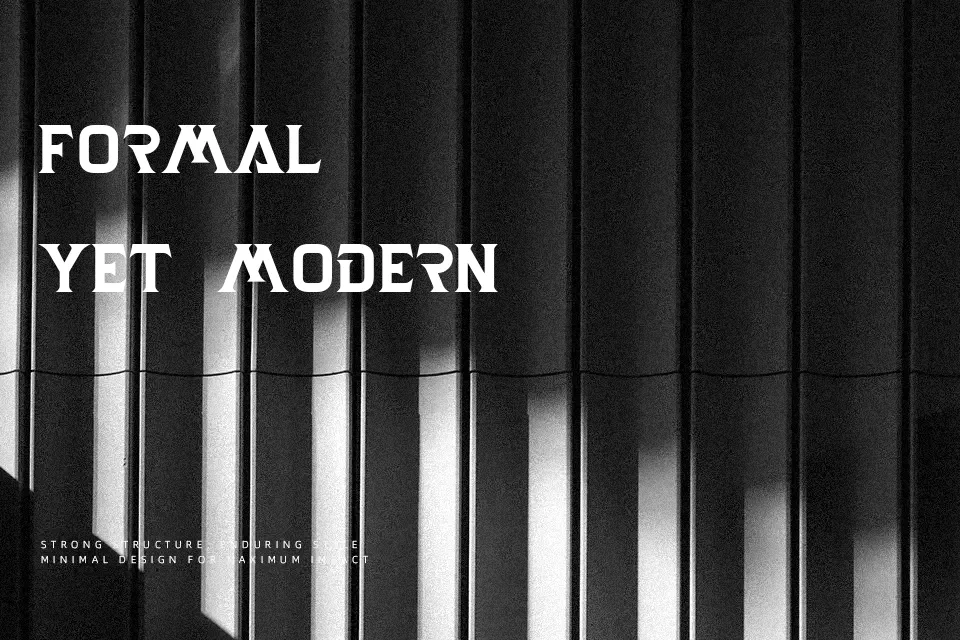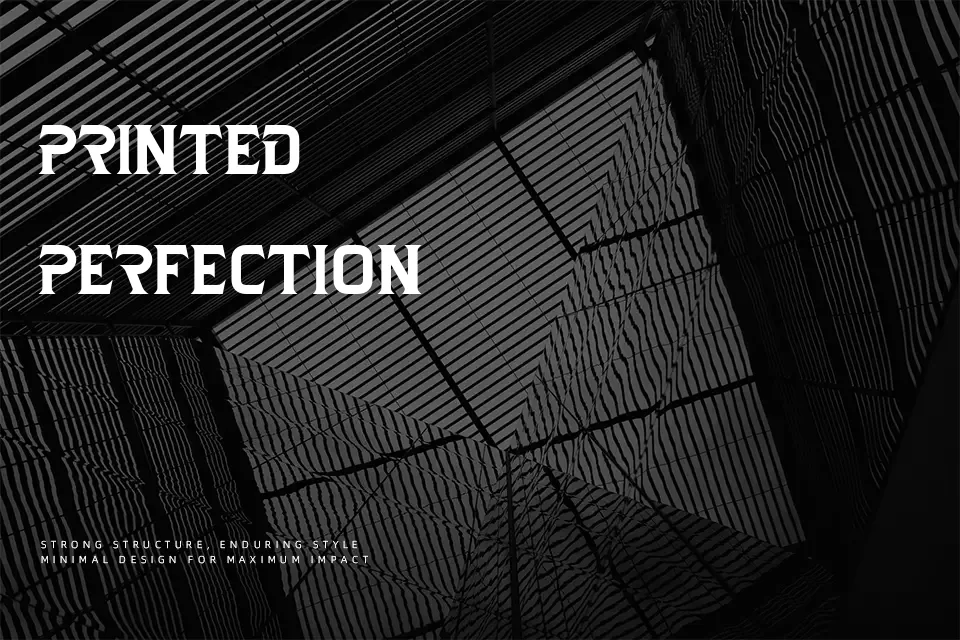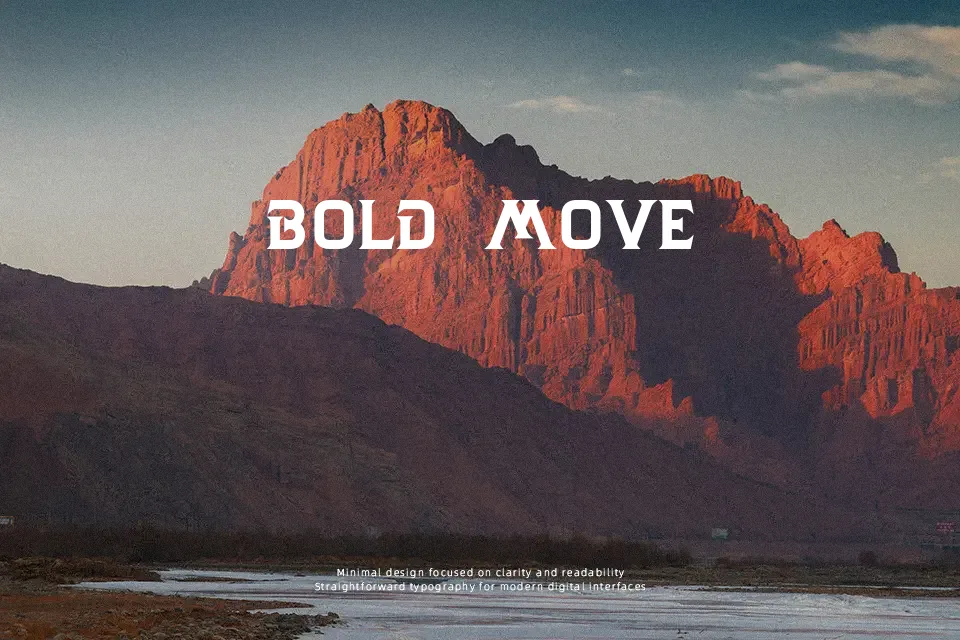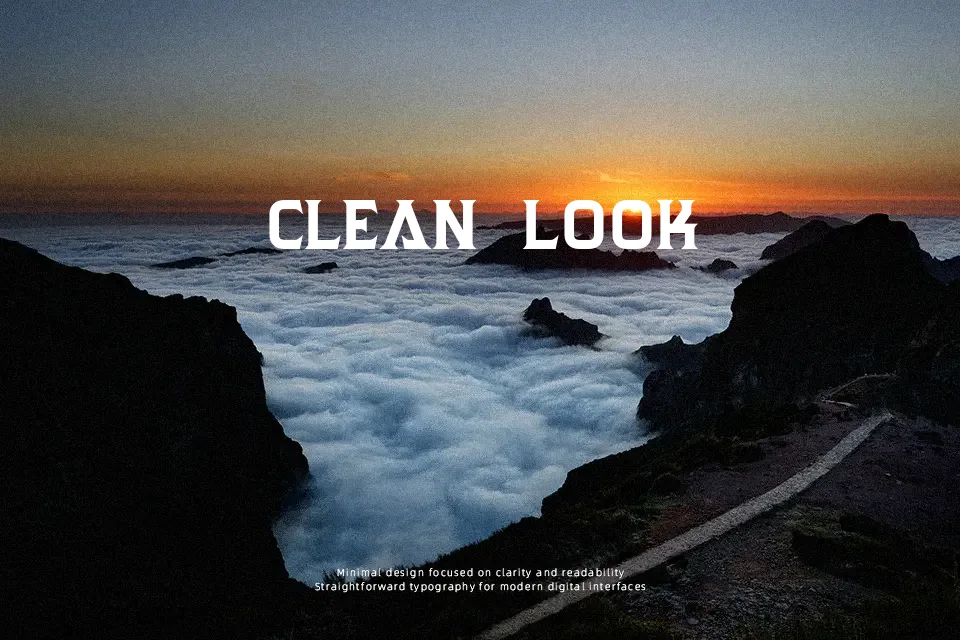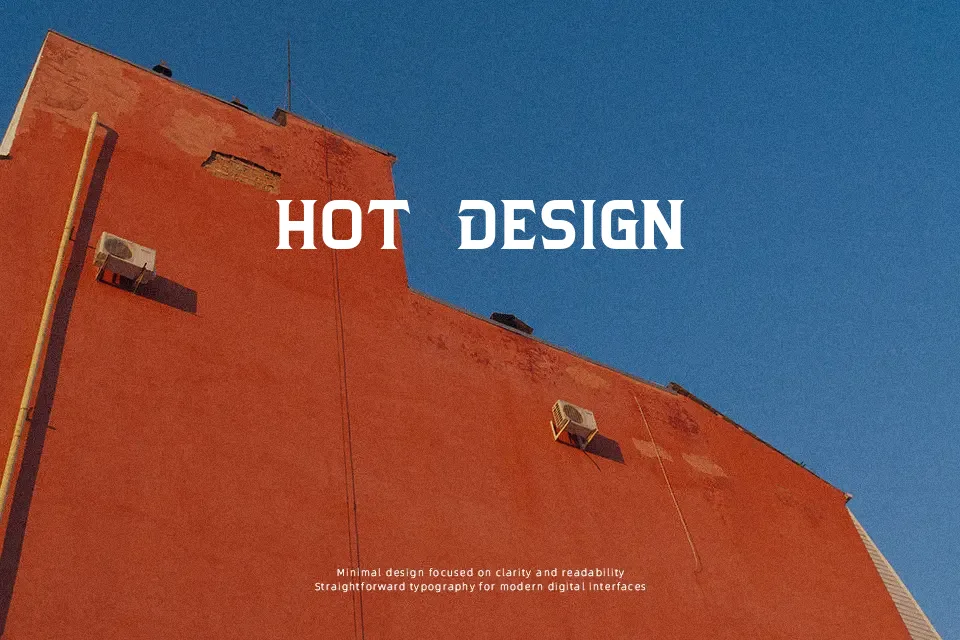
Varava Font
Varava Font delivers an assertive display structure marked by dense stroke weights, sharp cut angles, and tight letter spacing. The design emphasizes solid silhouette shapes and stark geometric proportions, creating immediate punch across titles and wordmarks. Balanced stroke consistency keeps uppercase characters coherent in short configurations, which helps maintain clarity in larger headlines. However, the heavy visual density and compressed internal counters make the letterforms unsuitable for continuous reading or small captions, where intricate intersections quickly blur together. It functions best when reserved for high-impact graphic treatments.
Best For: esports team logos, fantasy book covers, gaming event posters, bold apparel graphics
Not Ideal For: long paragraph text, mobile app interfaces, editorial body copy, legal documents
Perfect for gaming, headline, and logo, with a bold and decorative style.